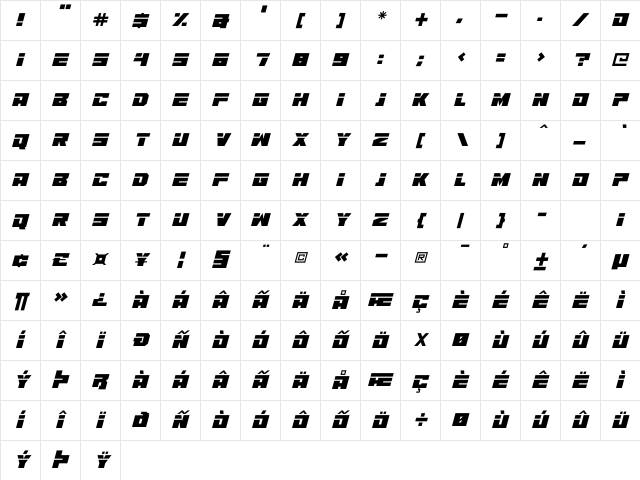
Robot Monster Italic
Design Context for Robot Monster
Robot Monster is a composed and adaptable typeface that performs quietly and consistently across a wide range of design contexts. The slanted form adds forward momentum and visual energy.
Pro Tip: Use Robot Monster for emphasis, pull quotes, and subheadings where its slanted energy can add rhythm to the layout.